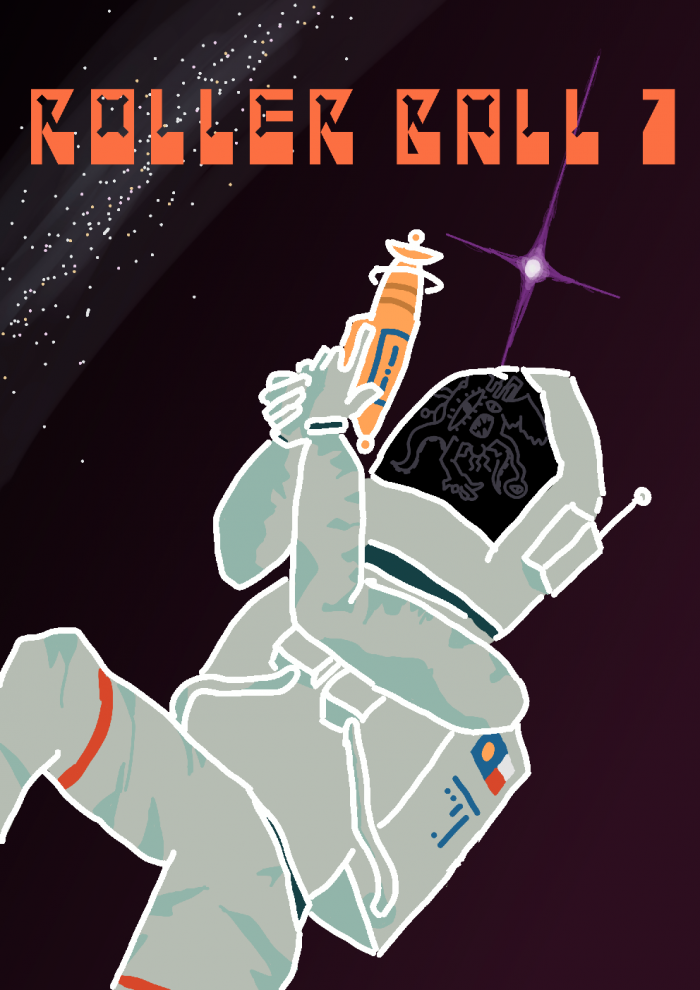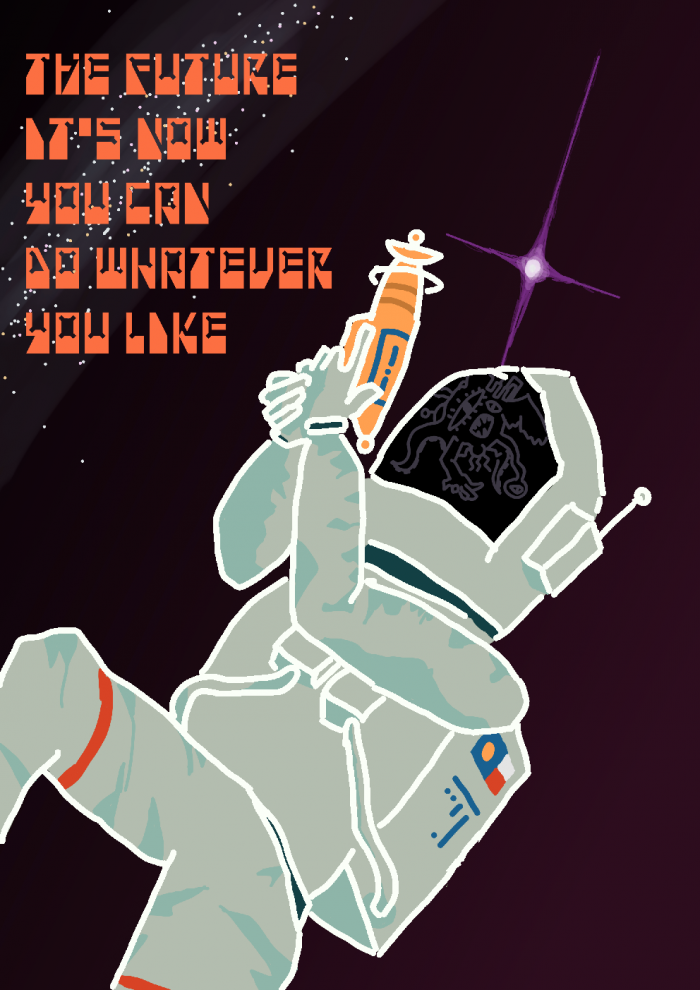
Thank you very much for this font and its Cyrillic script. I think this is a very interesting idea that may well win. And the picture for the font is just amazing!
Congratulations! FontStruct Staff have deemed your FontStruction worthy of special mention. “Rollerball_1” is now a Top Pick.
i like the inktraps in this